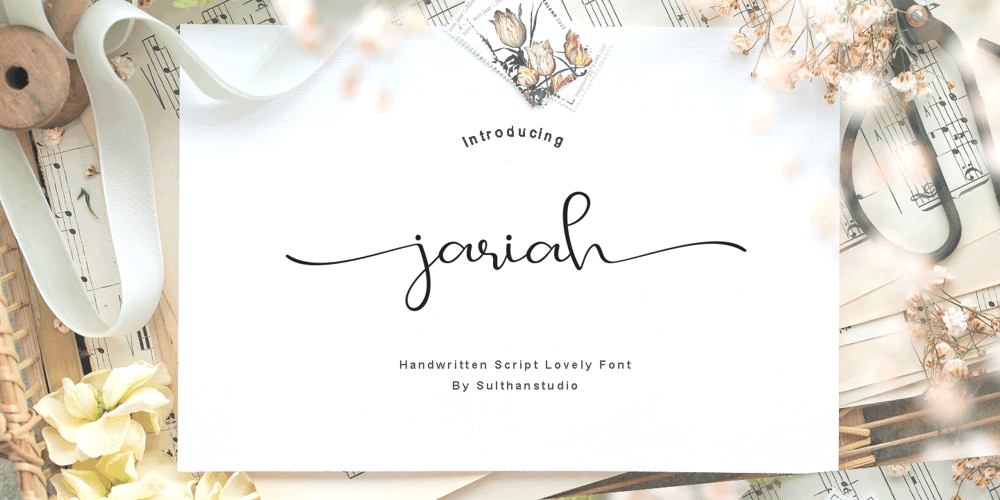
Jariah
Jariah font
Jariah Font Family was designed by Nasrullah and published by Sulthan Studio. Jariah contains 1 styles and family package options. is a beautiful and light handwritten font with a unique feel and a stunning impact. It will add a luxury spark to any design project that you wish to create! This font is PUA encoded which means you can access all of the amazing glyphs and ligatures with ease!